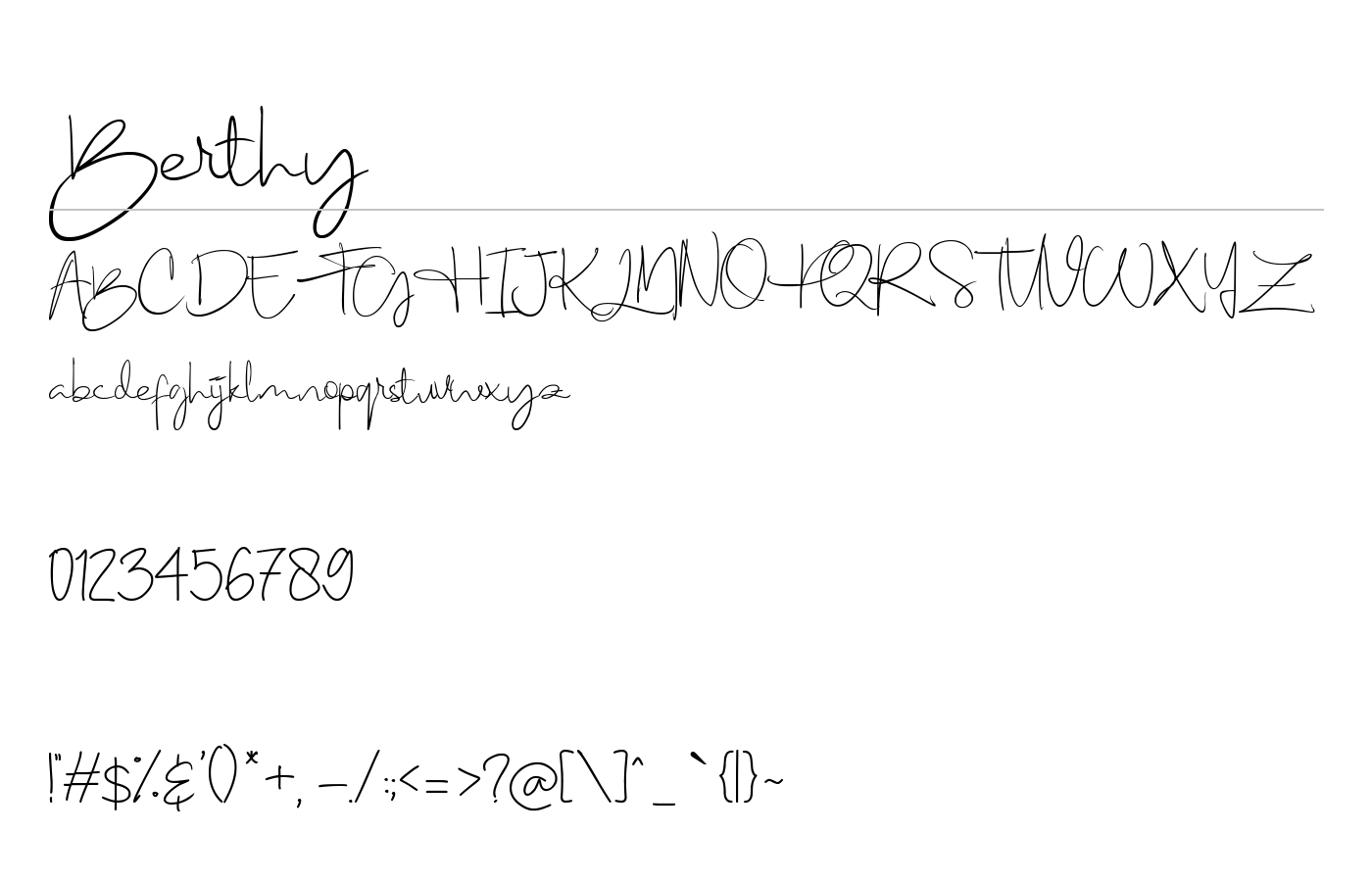
Berthy Font is a delicate, handwritten script with a whimsical and airy feel, characterized by its thin, flowing lines and playful letterforms. Its casual, organic style makes it perfect for creative projects, invitations, and branding that seek a personal, approachable touch. This font works especially well in designs that aim to convey friendliness and creativity without sacrificing elegance.
Berthy Font